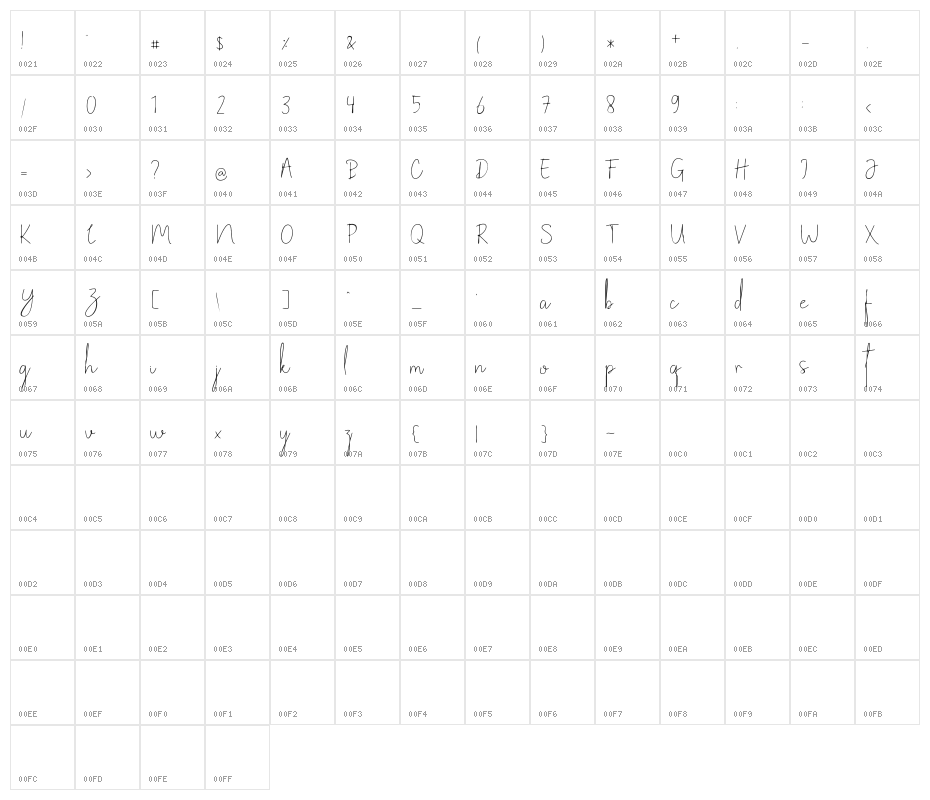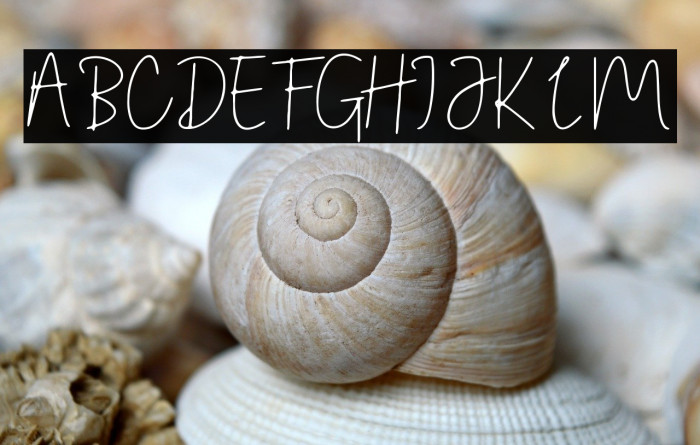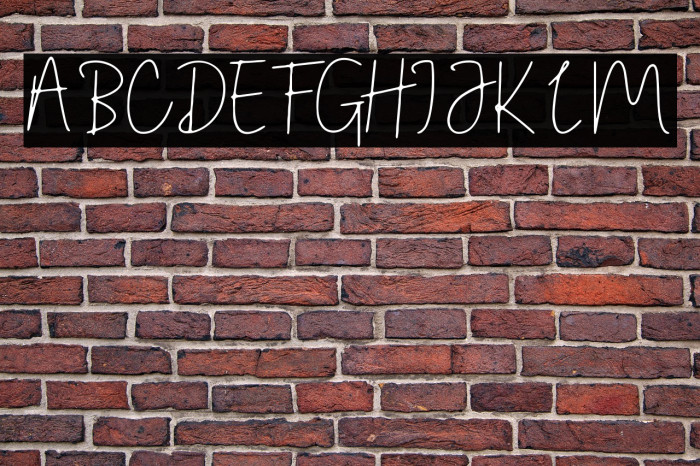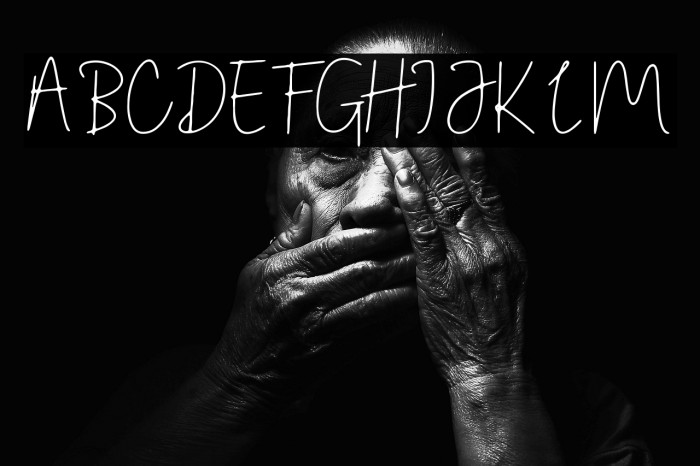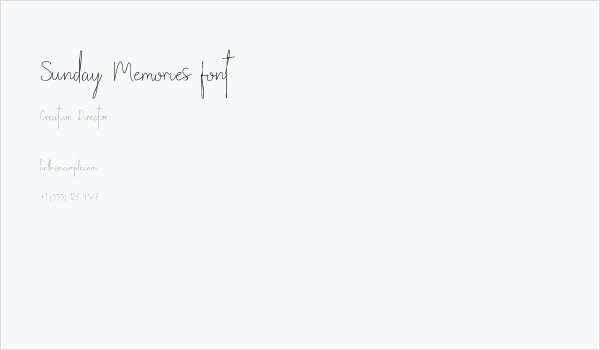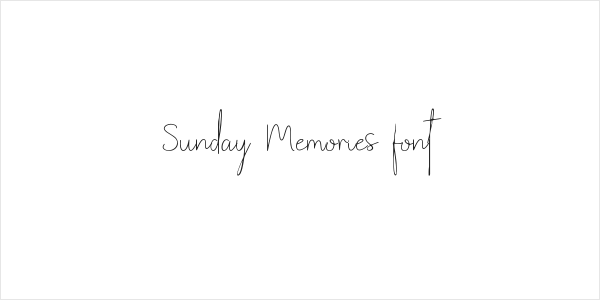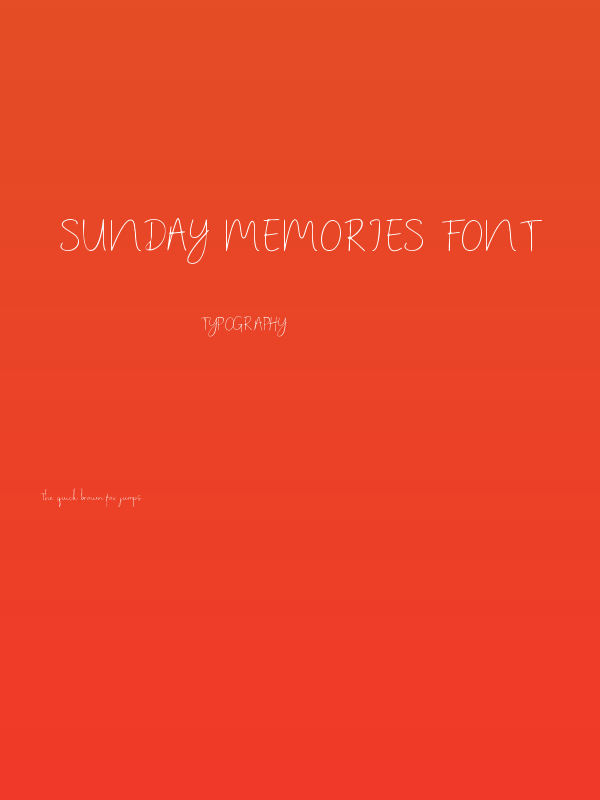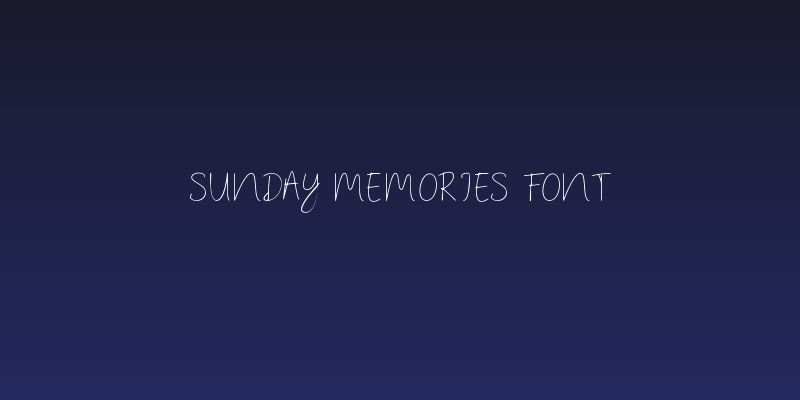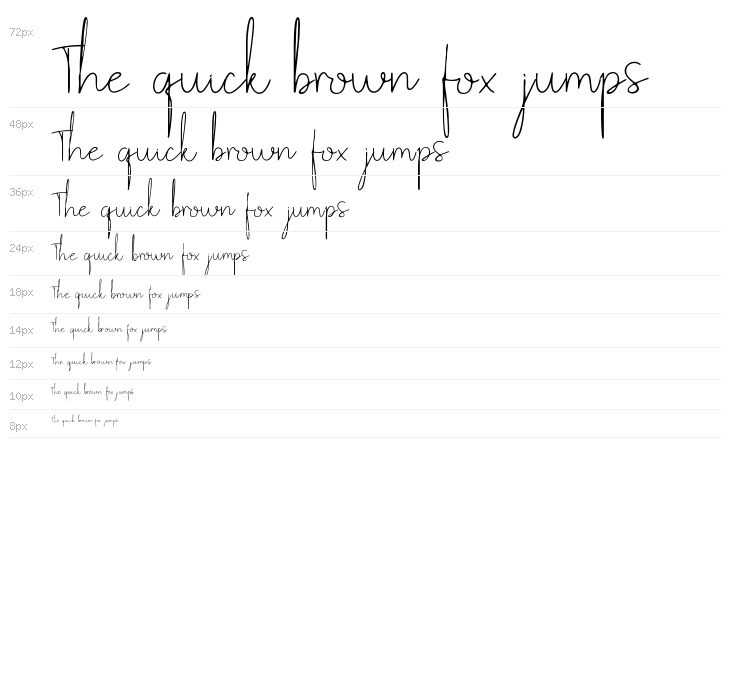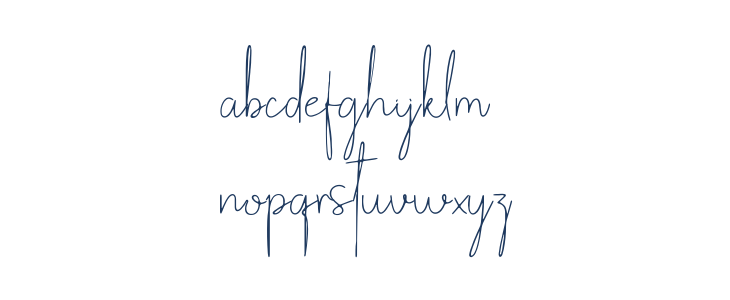
Sunday Memories font Font
Sunday Memories font Description
This font exudes a casual and whimsical charm, characterized by its handwritten style that mimics the fluidity and spontaneity of natural handwriting. The letters are slender and slightly irregular, giving it a personal and informal touch. The uppercase letters are tall and elegant, while the lowercase letters maintain a consistent flow with subtle variations in height and slant. The numerals and special characters follow the same playful aesthetic, making the font versatile for creative projects. Its overall appearance is light and airy, with a sense of movement and freedom.
| Proposed Projects | Ideal for greeting cards, personal notes, invitations, and creative branding projects. |